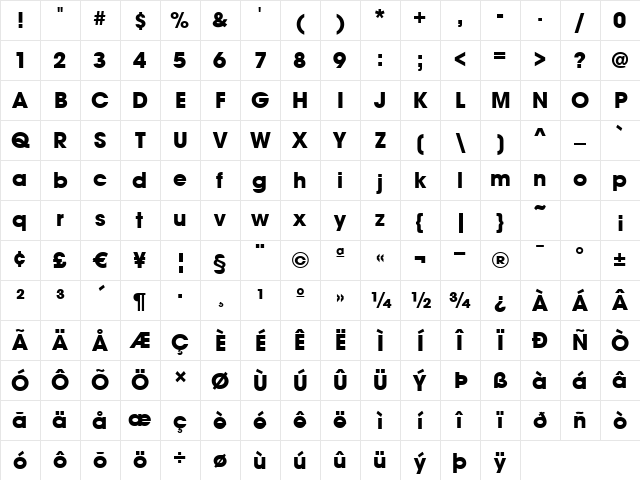
Geometrical-A861 Bold
Design Context for Geometrical-A861
Geometrical-A861 is a composed and adaptable typeface that performs quietly and consistently across a wide range of design contexts. Its bold stroke weight gives it real presence on the page.